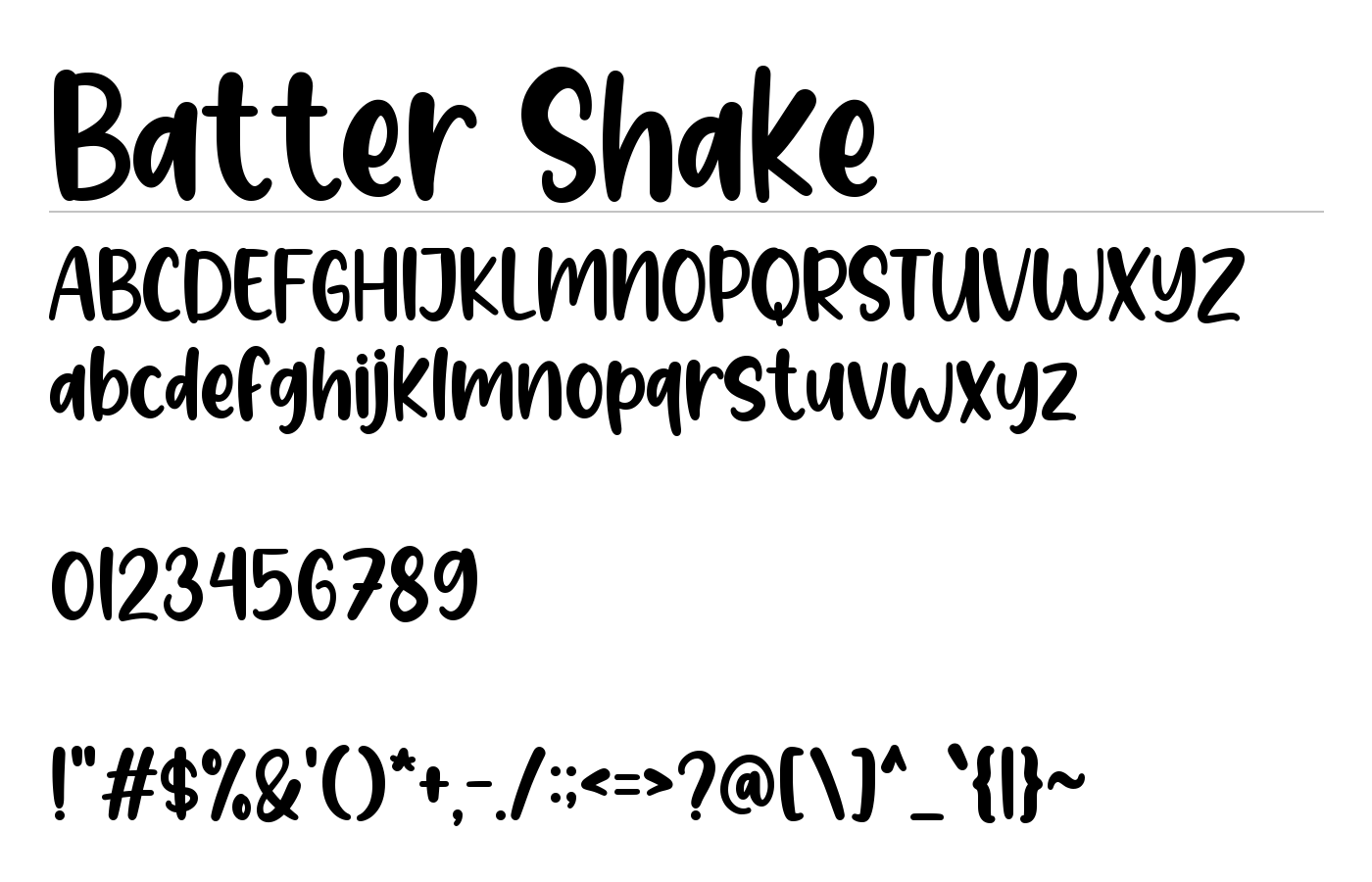
Batter Shake is a playful and informal sans serif font that features rounded, slightly irregular letterforms with a friendly, hand-drawn feel. Its medium weight and lively strokes make it perfect for adding a warm, approachable personality to casual branding, children's products, or creative projects where a touch of whimsy is desired. This font works best in headlines, packaging, or any design needing a relaxed, cheerful vibe.
Batter Shake Font
About Batter Shake Font